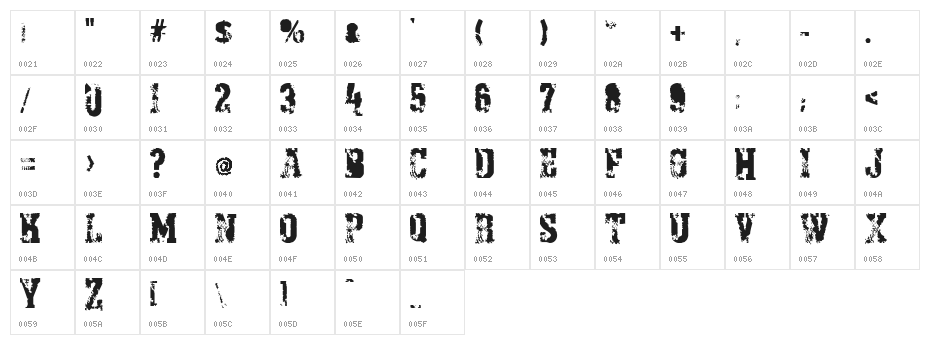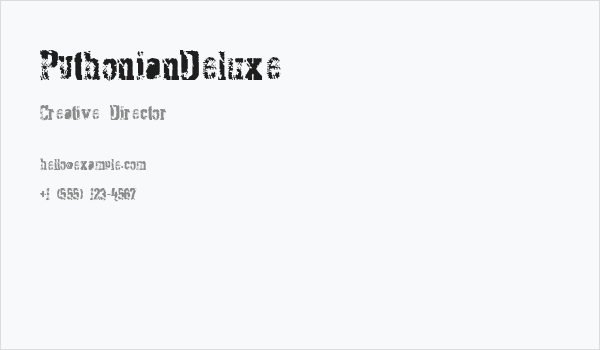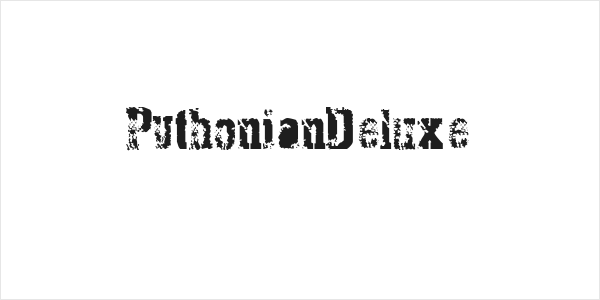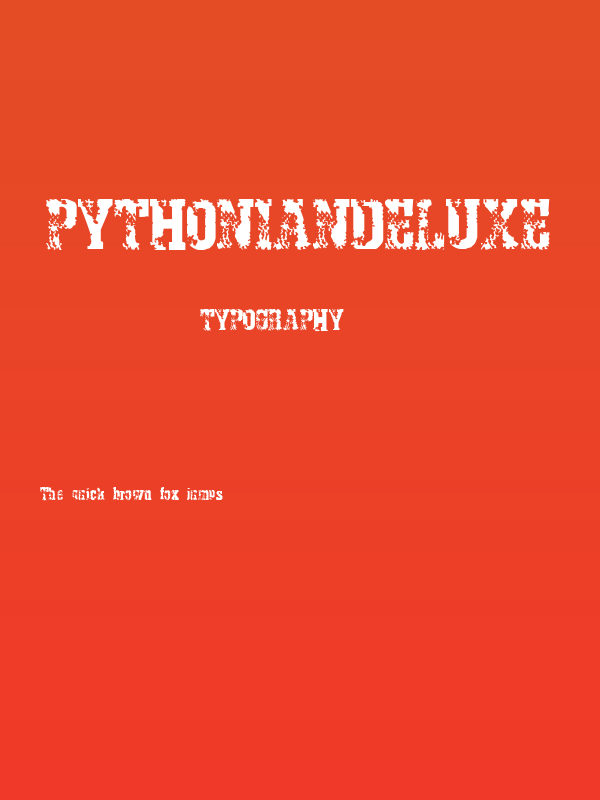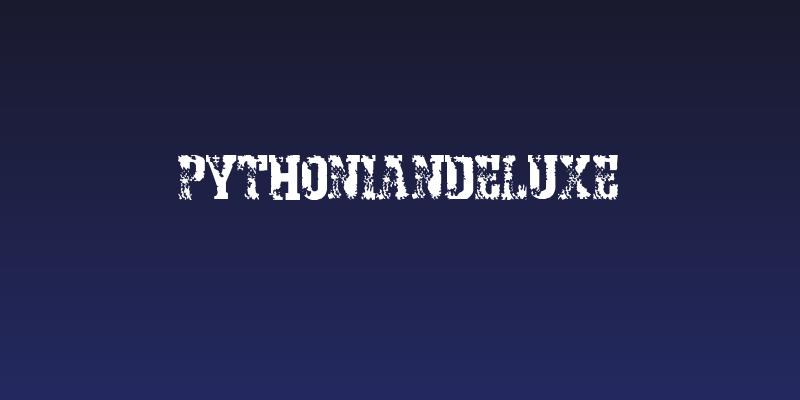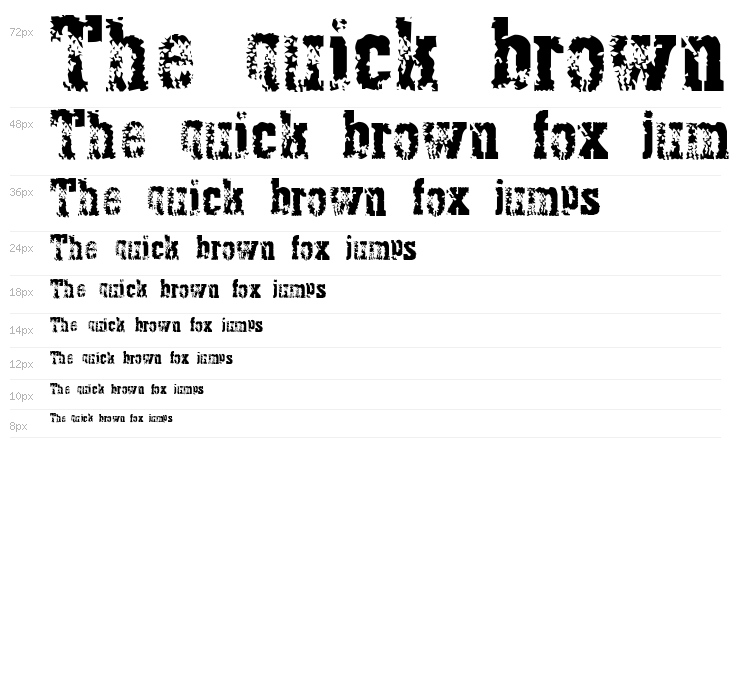
PythonianDeluxe Font
PythonianDeluxe Description
This font features a bold and distressed style, with a rugged texture that gives it a worn, grunge appearance. The characters are heavily textured, creating a sense of depth and visual interest. Each letter appears as if it has been weathered over time, with irregular edges and a rough finish. The uppercase and lowercase letters maintain a consistent style, while the numerals and special characters carry the same distressed aesthetic. This font is ideal for projects that require a bold statement or a vintage, industrial look.
| Overall Style | Vintage, Grunge |
| Proposed Projects | Ideal for posters, album covers, branding for edgy or vintage-themed products, and any design requiring a bold, impactful statement. |